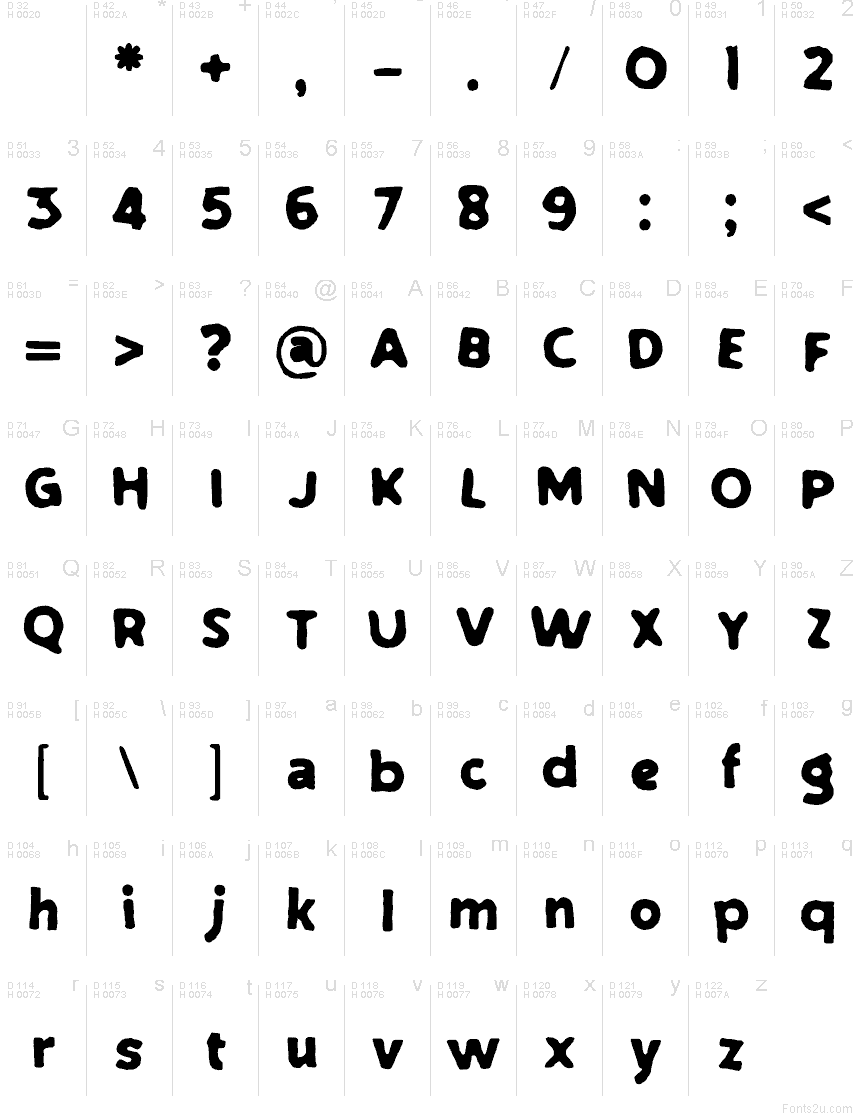
The Chello
The Chello font by Afkari Studio is a free eroded display typeface with big, inky shapes and soft, beaten-up edges that feel hand-cut rather than digitally sharpened. Its chunky, rounded forms and irregular contours give text a bold, friendly presence, like paint letters that have been weathered by time but still hold their charm. There’s a playful roughness here that reads as DIY and human, not harsh or gritty.
Using The Chello, you can bring that scruffy, approachable energy to gig posters, zines, kids’ event graphics, streetwear branding, stickers, and bold social posts. This free font shines at large sizes where its texture can breathe; pair it with a clean geometric sans in smaller text to keep layouts readable while letting The Chello handle the headline attitude.